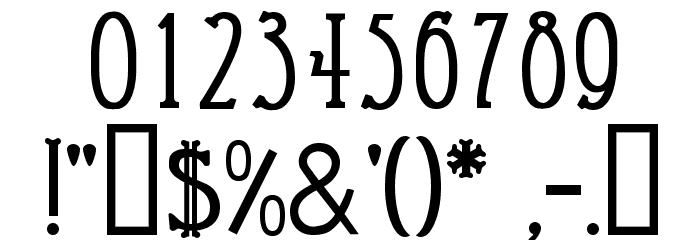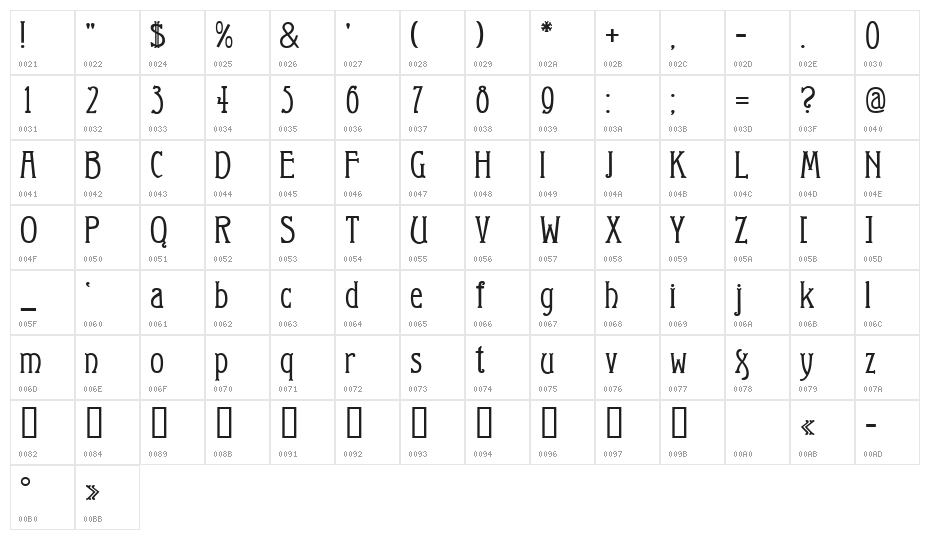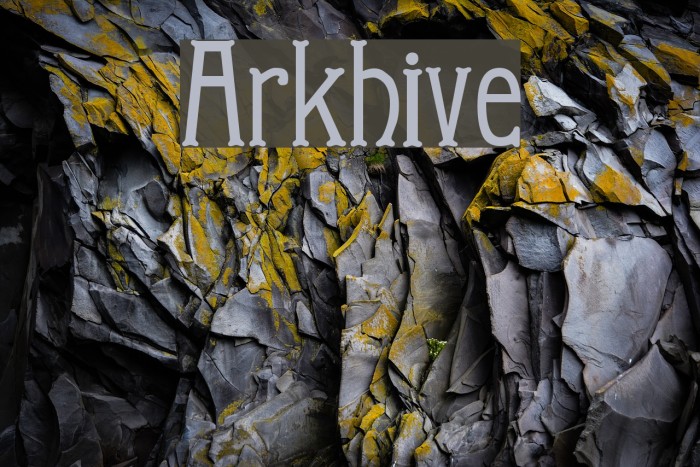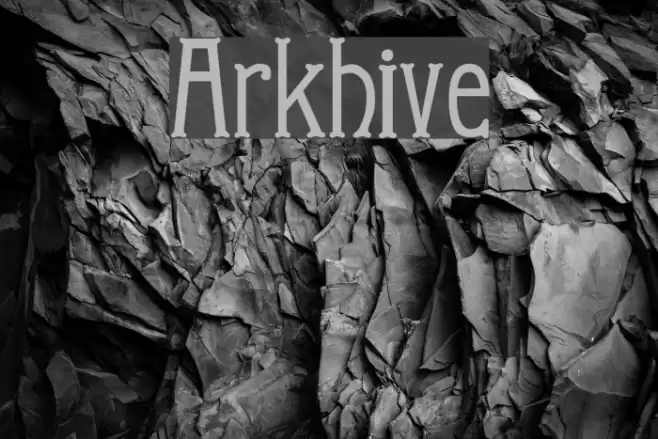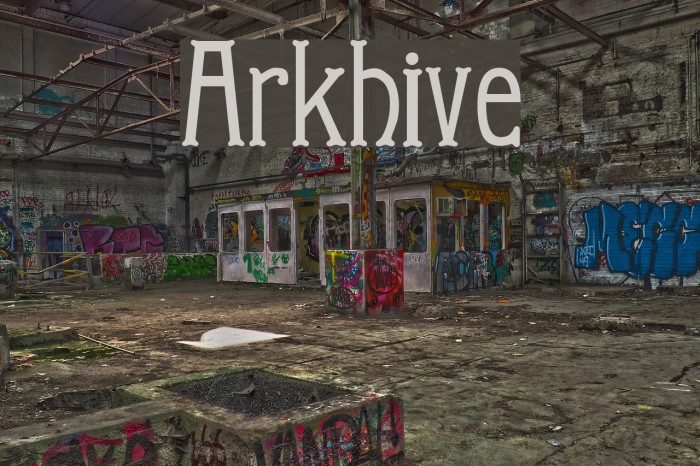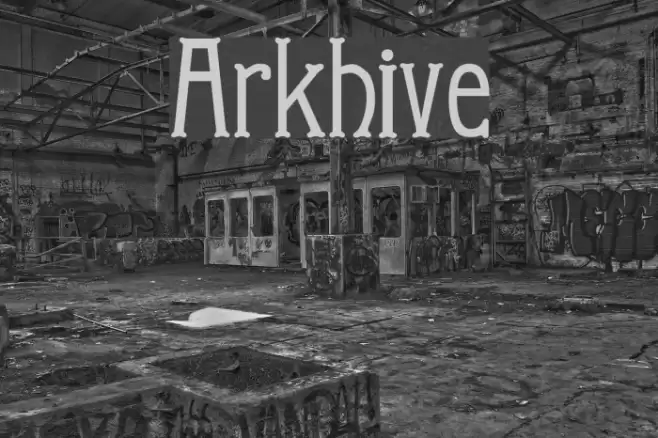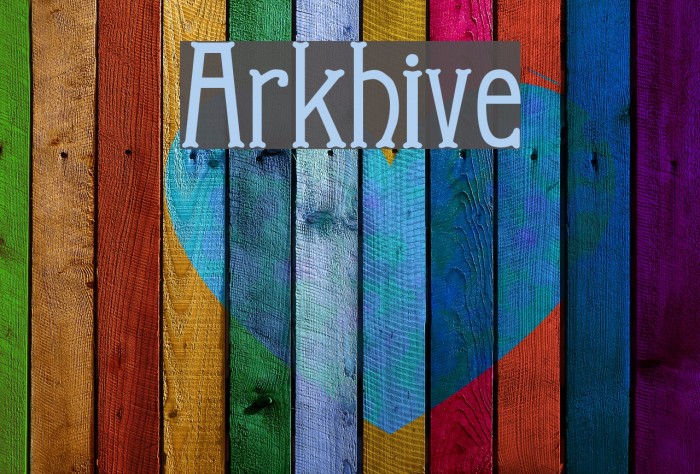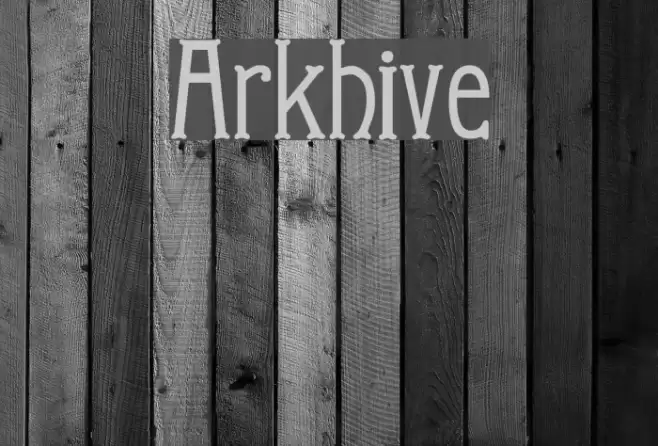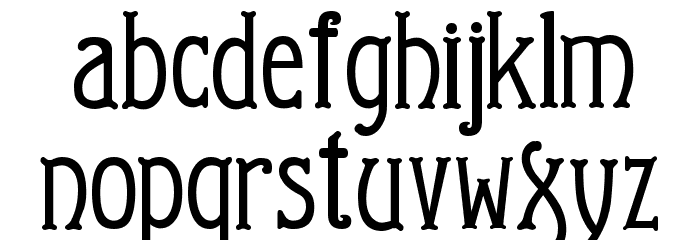
Arkhive Font
Arkhive Description
This font features a unique blend of classic and modern elements, characterized by its tall, narrow letterforms and subtle serifs. The uppercase letters are slightly elongated, giving them a distinctive presence, while the lowercase letters maintain a consistent height with gentle curves. The numerals are styled to match the overall aesthetic, with a slight quirkiness that adds character. Special characters are thoughtfully designed, maintaining the font's cohesive look. The overall appearance is both elegant and approachable, making it suitable for a variety of design applications.
| Use Case | Headlines, Logos, Editorial design |
| Proposed Projects | Ideal for book covers, posters, branding, and editorial design where a touch of elegance is desired. |